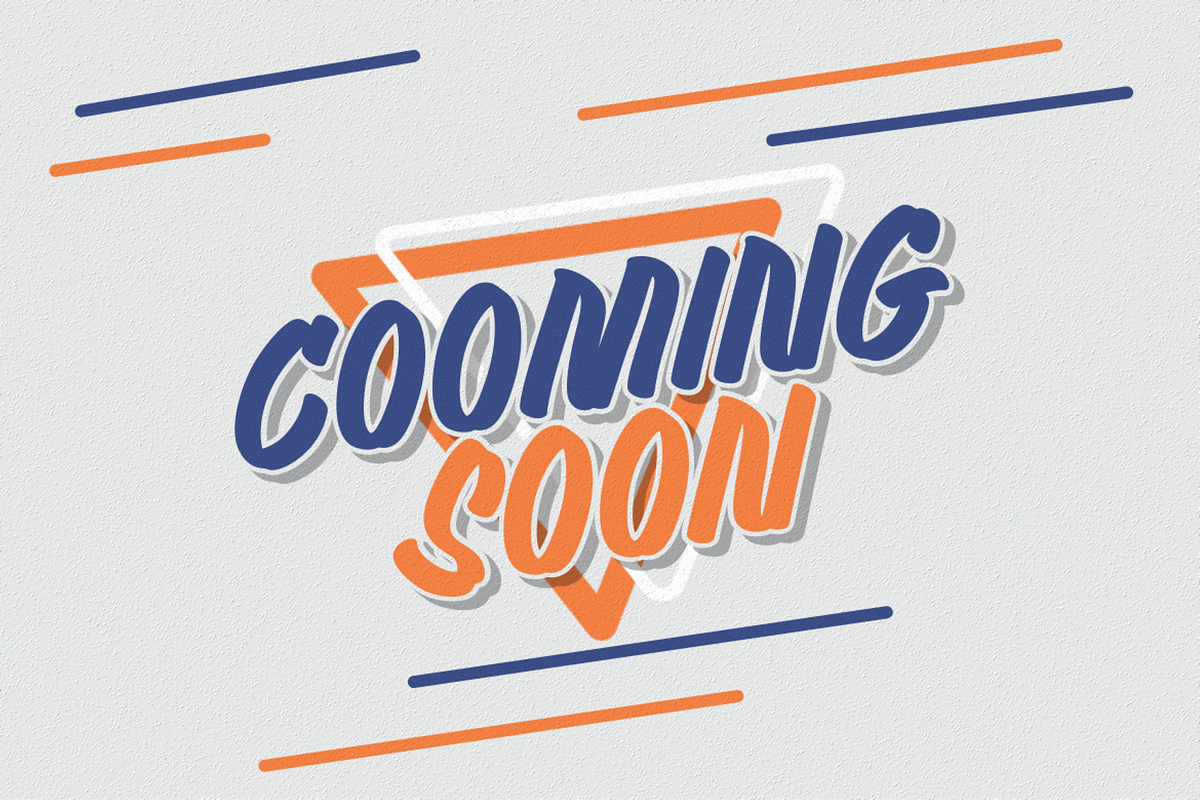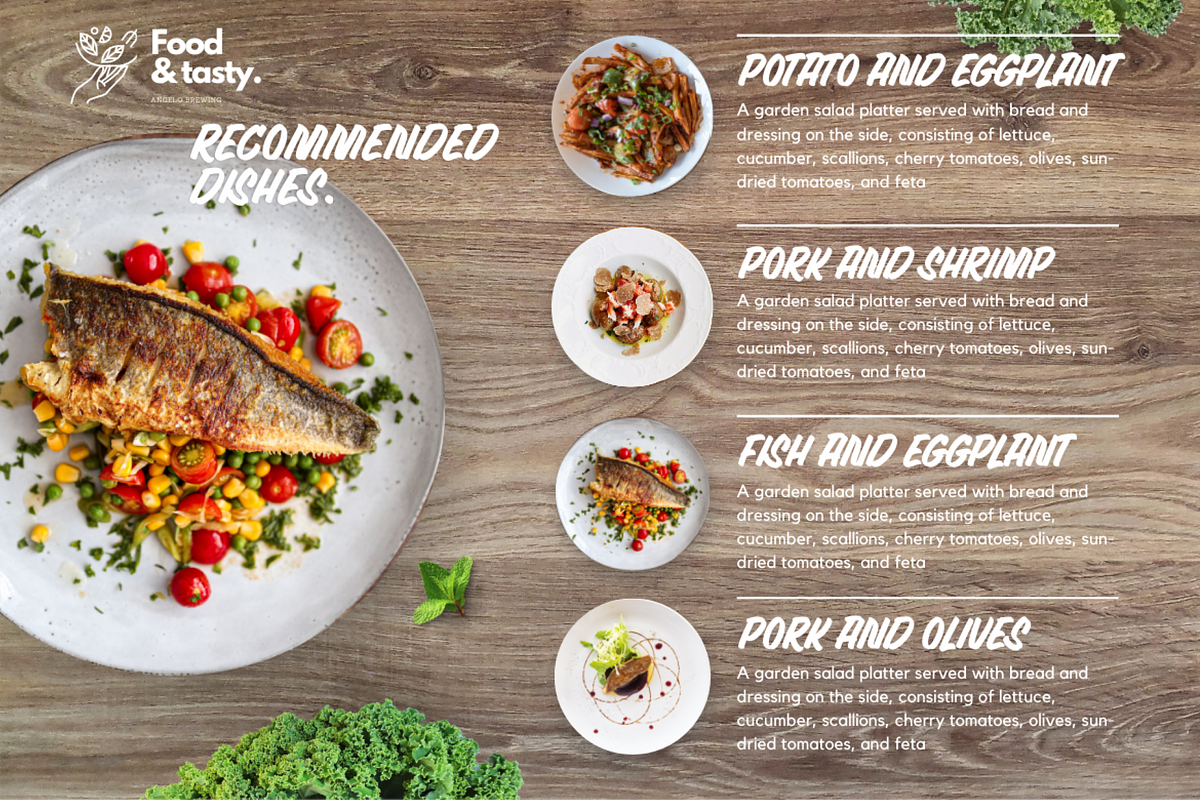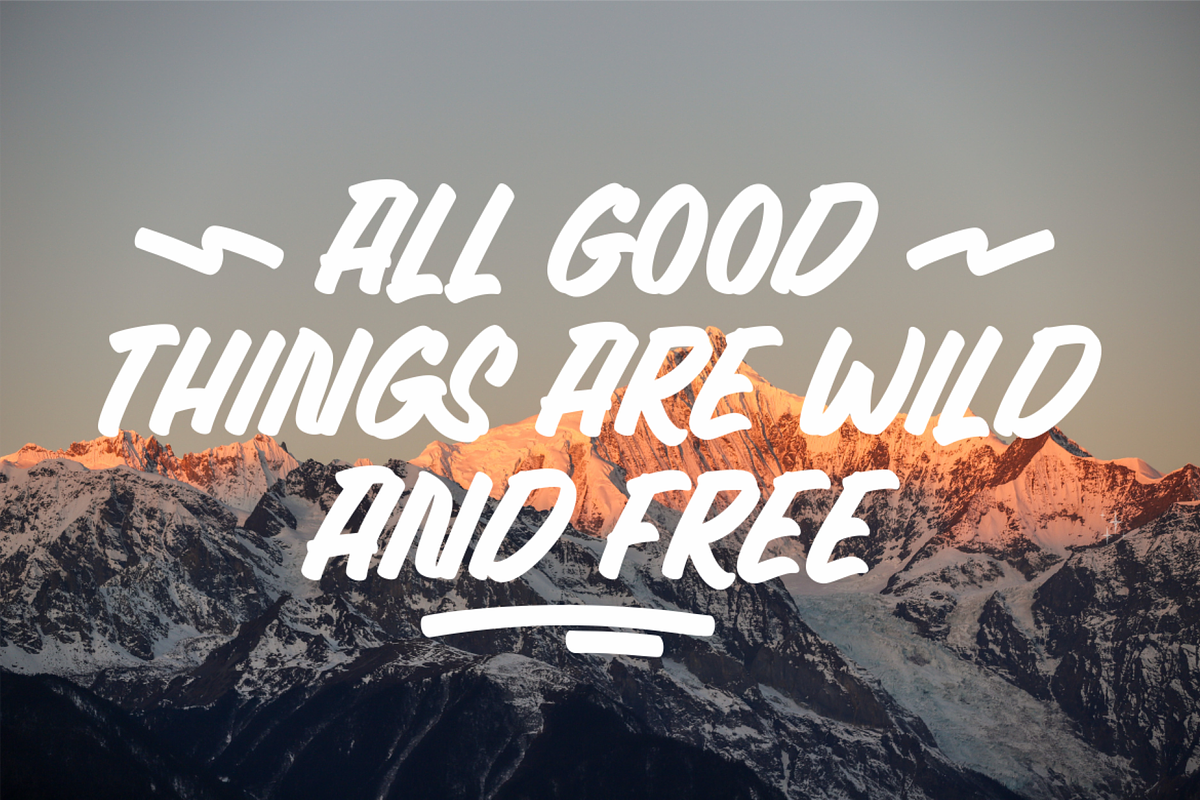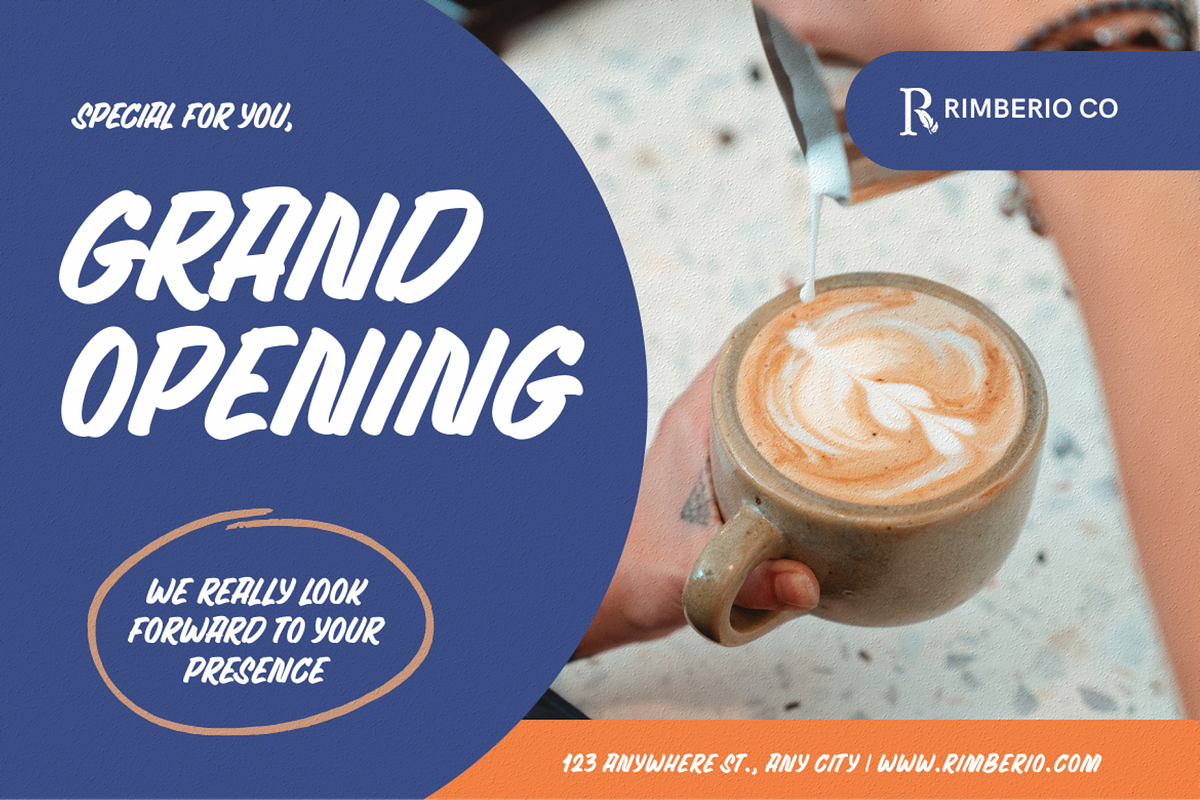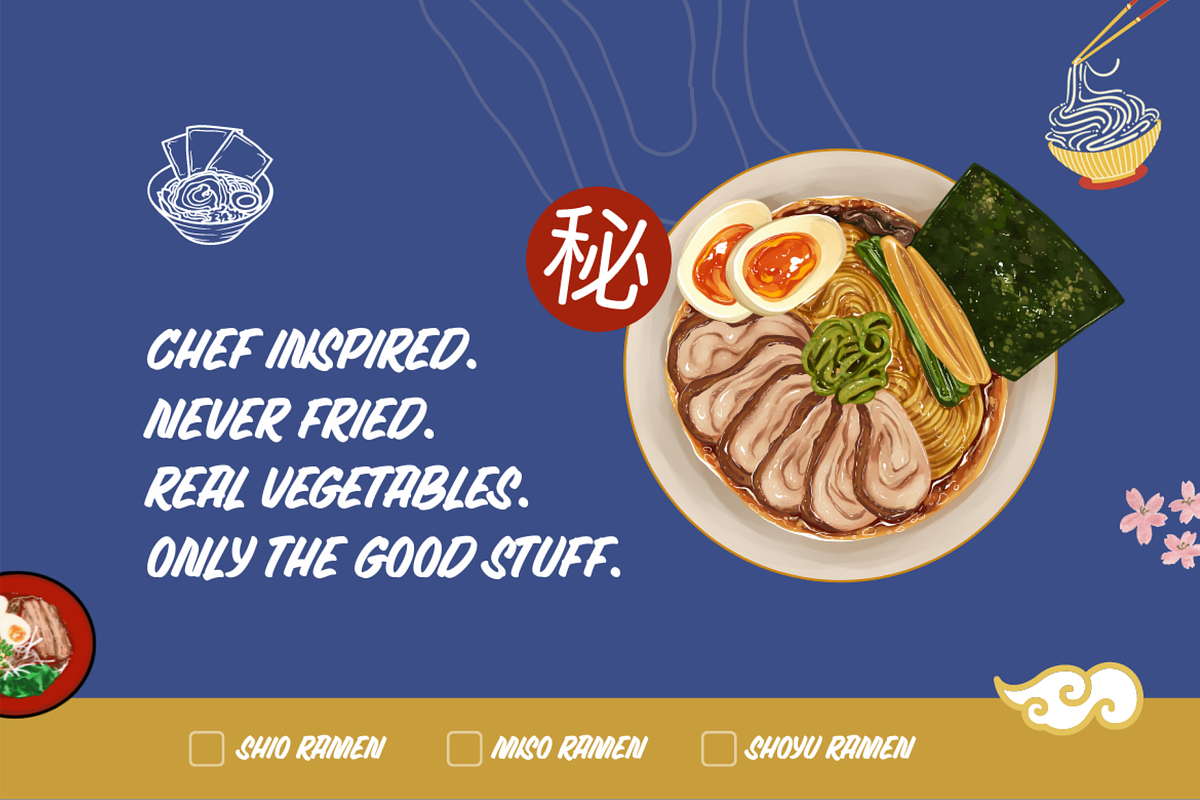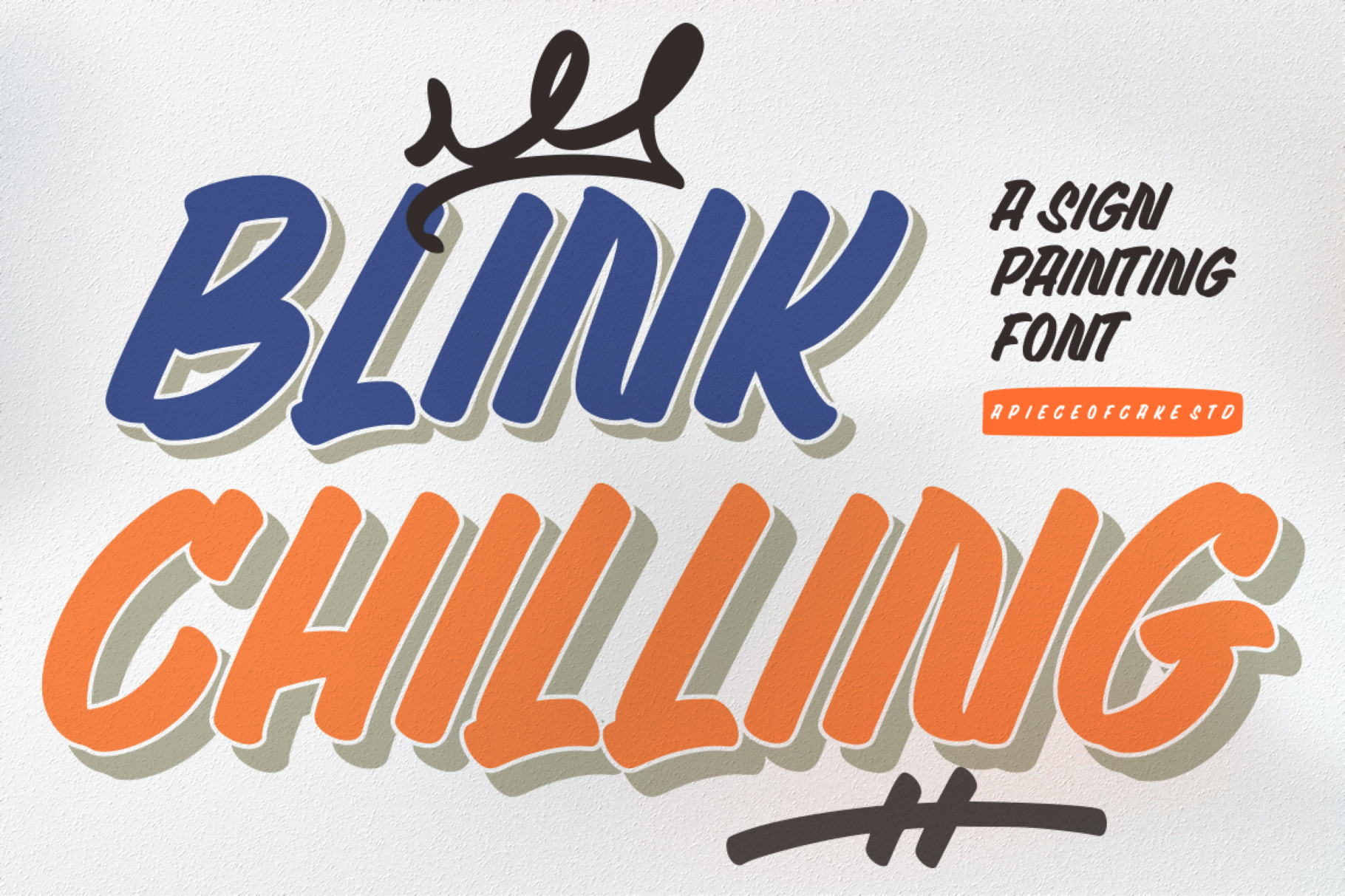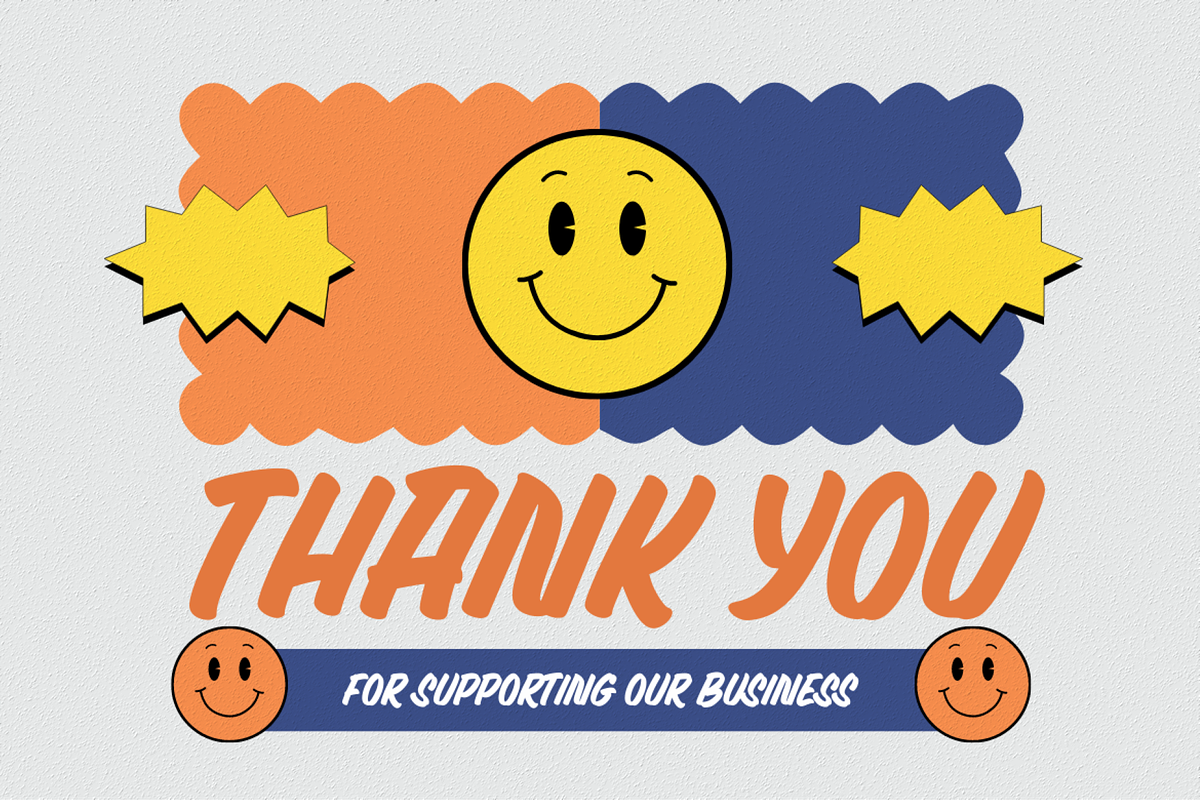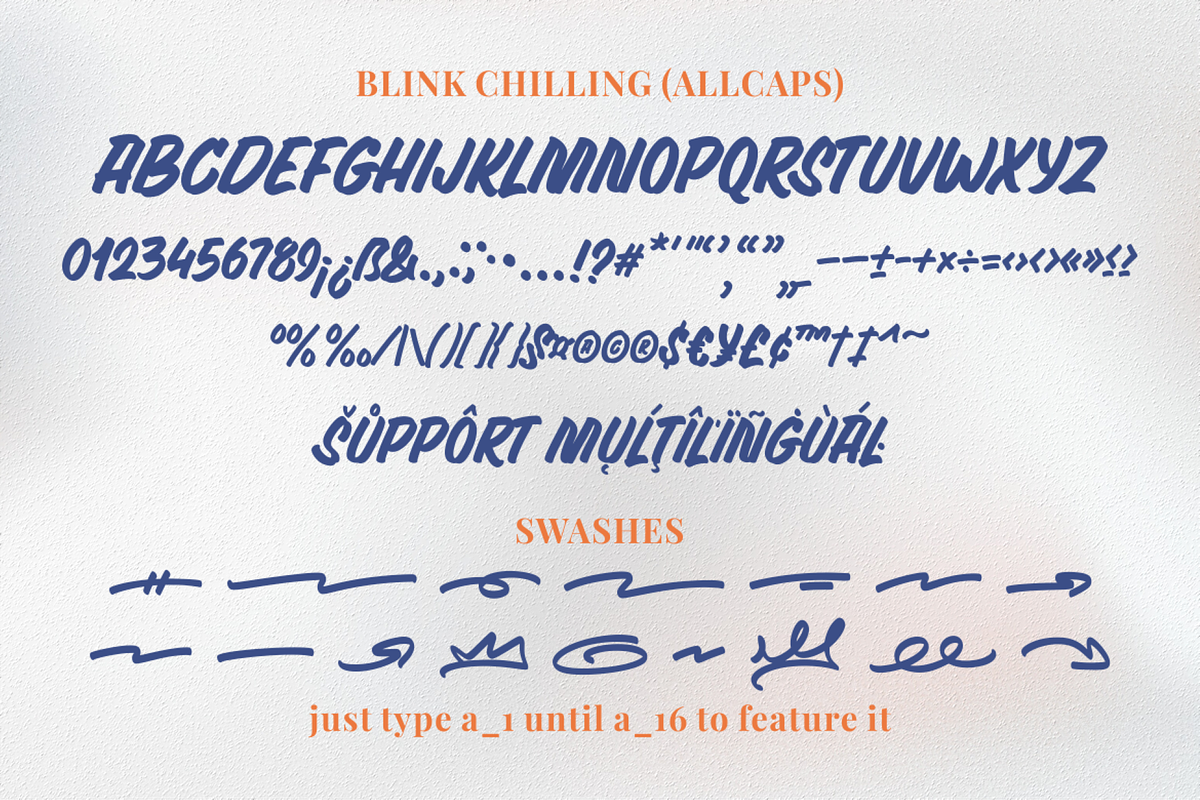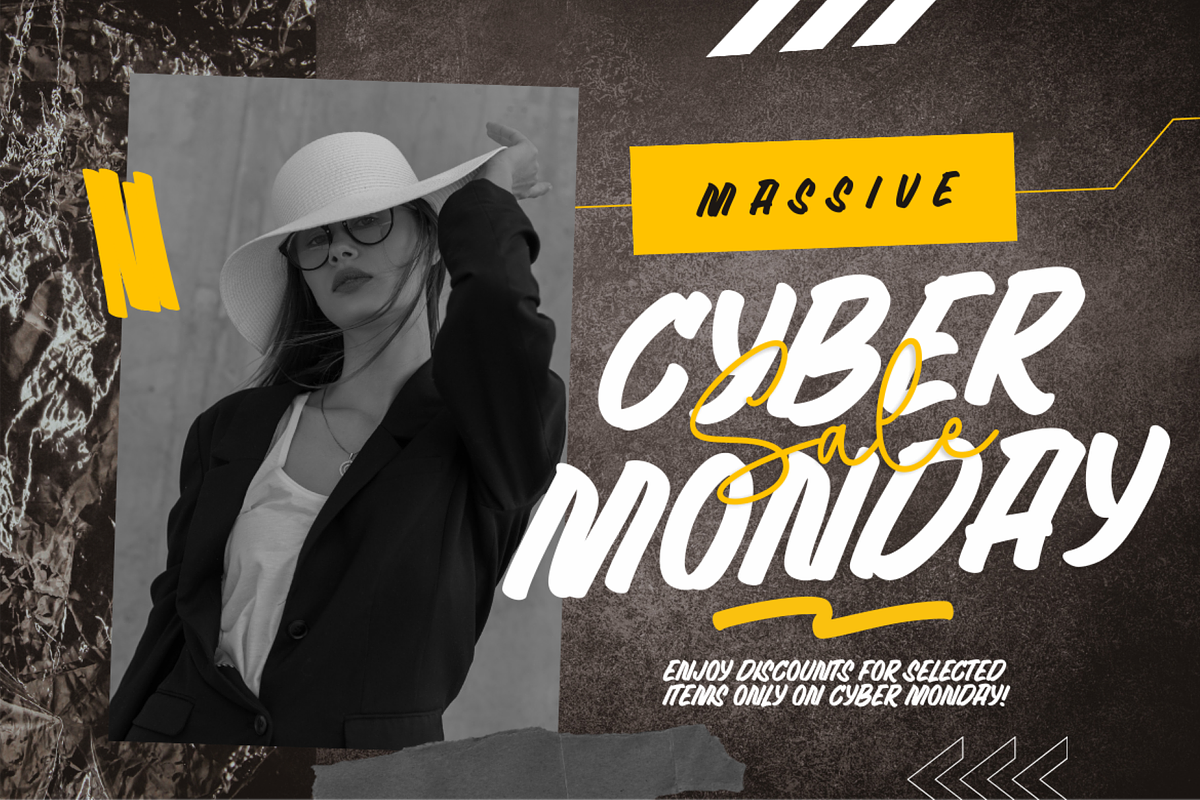
Blink Chilling - A Display Font
Introducing, Blink Chilling is a casual display font suitable for your design project needs, such as; social media posts, quotes, overlays on images, tagline, logos, posters, print needs, website banners, and more.
- Allcaps
- Number, symbol, and punctuation
- Some swashes